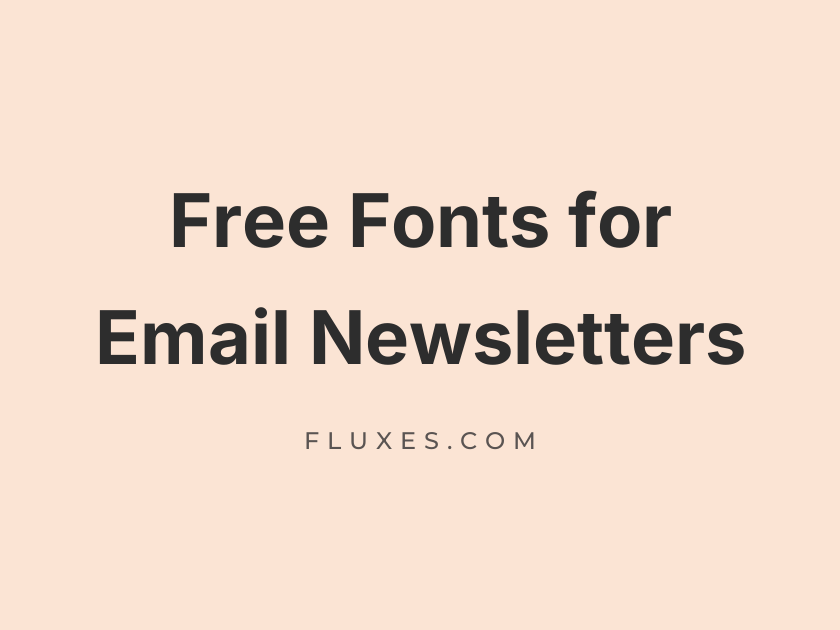
60 Best Free Fonts for Email Newsletters
A newsletter lives or dies on legibility. Most subscribers skim on a phone screen at 14 or 15 pixels, in a preview pane, often with images blocked, so the typeface carries far more weight than in a printed piece or a splash page. Choosing the best free fonts for email newsletters means favoring open counters, generous x-heights, and a range of weights that hold up in cramped inboxes, while still giving your brand a bit of personality in subject lines and headers.
Everything recommended here is free on Google Fonts, so you can pull it into a newsletter template, a landing page version of your campaign, or a blog recap without licensing headaches. Many double as reliable alternatives to system stalwarts like Arial, Georgia, or Helvetica, which is useful if your email service provider falls back to web fonts for some clients and system fonts for others.
Built originally for screen interfaces, Inter renders with a crispness at small sizes that few grotesques match, which is exactly the environment a newsletter body lives in. It has quietly become the default choice for product-minded brands, and for good reason.
Work Sans carries a slightly warmer, more optimistic feel than the strict grotesques, with rounded terminals that soften long paragraphs of copy. It sits comfortably in both body text and subject-line treatments.
Adobe’s first open-source typeface remains one of the most dependable workhorses for editorial email, plain and even-toned enough to disappear behind the content. It pairs well with almost any serif you might choose for a masthead.
Few fonts have logged as many screen hours as Open Sans, and that ubiquity is a feature here: it renders predictably across nearly every email client and device. It will never feel exciting, but it will never fail you either.
Google built Noto specifically to cover the widest possible range of scripts, which makes it a smart pick for newsletters that go out to a multilingual list. The Latin cut alone is clean and businesslike, with nothing to distract from the message.
PT Sans has a slightly humanist warmth borrowed from its Cyrillic-friendly design roots, giving body copy a touch more character than purely geometric alternatives. It holds up well at the smaller sizes typical of footer text and unsubscribe links.
Karla has a gentle, slightly grotesque personality with rounded corners that keep dense paragraphs from feeling cold. It reads especially well in newsletters aimed at a friendly, community-driven audience rather than a corporate one.
Understated and low-contrast, Mulish is built to recede into the background so your content leads. It is a safe, flexible body font for newsletters that switch topics often and need a typeface that never clashes.
Rubik’s slightly rounded corners give it a friendly, approachable voice that suits consumer and lifestyle newsletters especially well. At heavier weights it makes a punchy subject-line or button font, while the regular cut stays readable in longer sections.
Nunito Sans pairs soft, rounded shapes with a technically balanced grotesque structure, so it feels friendly without tipping into novelty. It is a dependable choice for newsletters that want warmth without sacrificing professionalism.
Lato has a warm, humanist undertone hidden inside a fairly conventional grotesque frame, which is part of why it has been a favorite for corporate communications for over a decade. It works equally well set small in paragraphs or scaled up in a header.
As the default Android system font, Roboto is guaranteed to render natively on a huge share of mobile inboxes even before a web font loads. That practical reliability makes it a smart safety net for transactional and high-volume newsletters.
Plex Sans has a slightly technical, engineered feel that suits software, product, and developer-focused newsletters particularly well. Its distinctive italics and consistent rhythm keep long changelogs from feeling monotonous.
Designed for U.S. federal government websites, Public Sans is plain, neutral, and built for maximum accessibility, which makes it a strong choice for civic organizations, nonprofits, or any newsletter that prioritizes clarity over flair.
Keep body text at 15 to 16 pixels or larger, since inboxes are read on small screens more often than not.
Whatever direction you take, the safest strategy is restraint: one dependable workhorse for reading, one distinctive face for standing out in a crowded inbox, and enough contrast between the two to guide the eye without any extra effort from your subscribers.